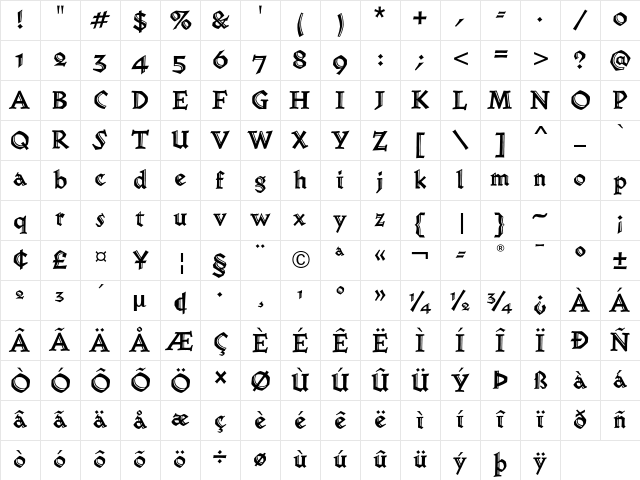
Werkstatt Engraved ITC Std Regular
Designer: Satwinder Sehmi/Colin Brignall
Design Context for Werkstatt Engraved ITC Std
Werkstatt Engraved ITC Std is built around its visual character rather than neutral utility - its distinctive forms are designed to make an impression at display sizes.
Font Pairing: Pair with a clean neutral sans-serif for body copy to let Werkstatt Engraved ITC Std's character lead without overwhelming the composition.
Pro Tip: Use Werkstatt Engraved ITC Std exclusively at display sizes - it was designed to be seen, not read at length. Let a neutral companion handle body copy.